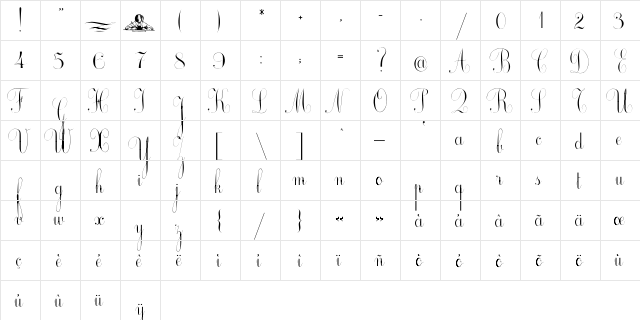
Ecole Anglaise Mod謥 Regular
| Designer | Big Jack FEYS |
Design Context for Ecole Anglaise Mod謥 Typeface
Ecole Anglaise Mod謥 is a composed and adaptable typeface that performs quietly and consistently across a wide range of design contexts.